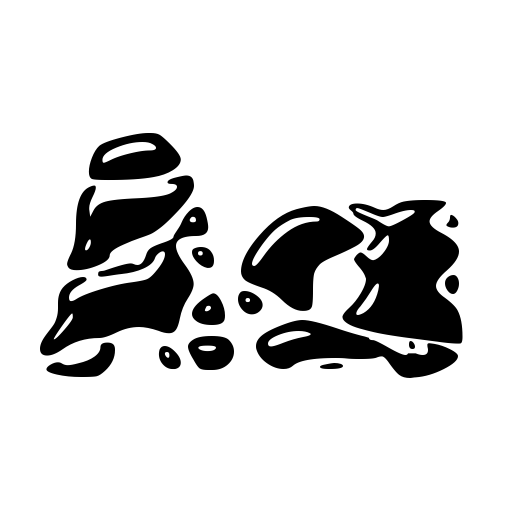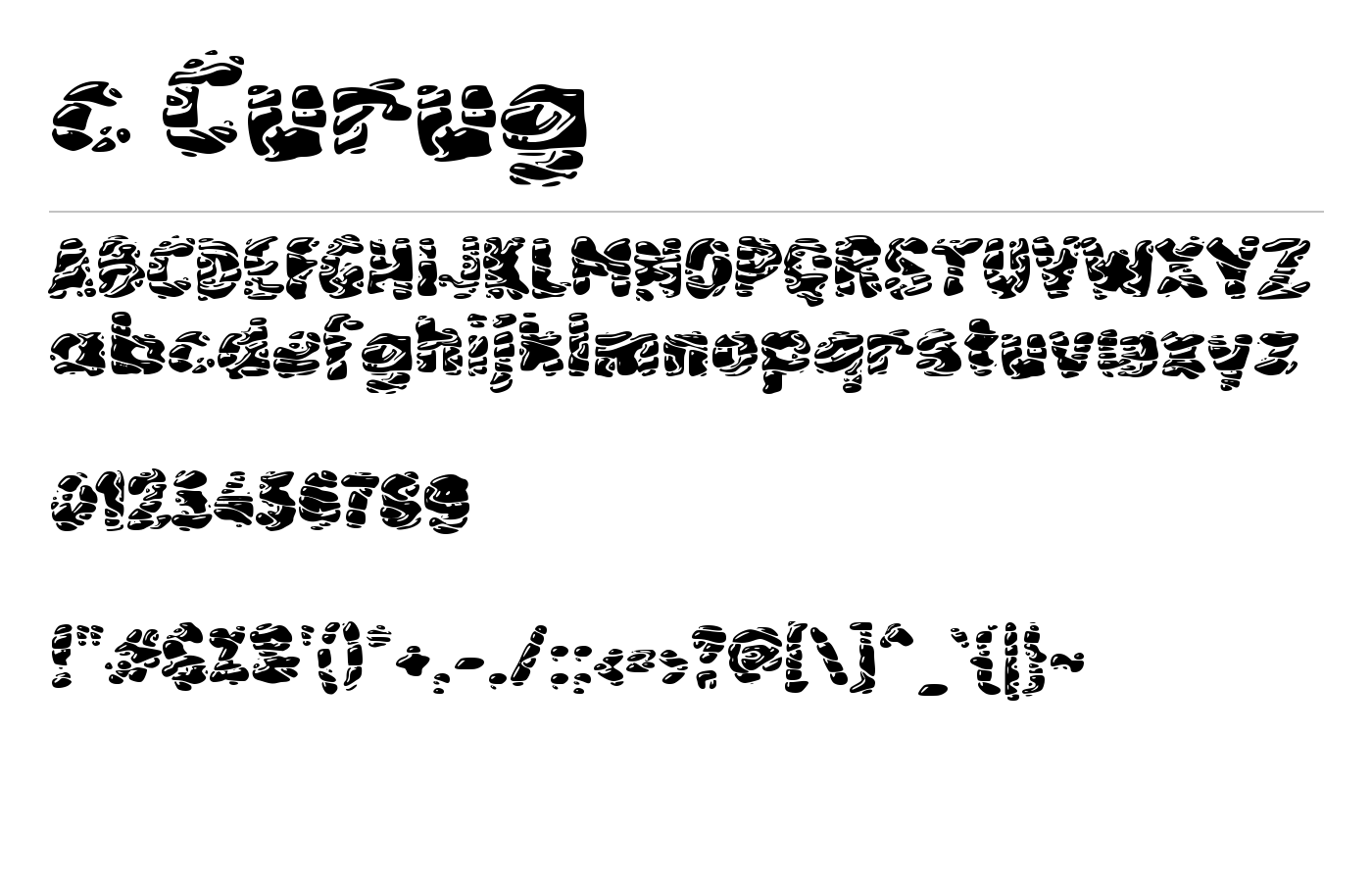
c Curug is a bold, decorative display font with a striking, organic texture that resembles irregular, fluid shapes layered within each letter. Its playful and dynamic style makes it ideal for eye-catching headlines, posters, and creative branding where a fun and unconventional look is desired. This font works best in large sizes to showcase its unique design and grab attention in artistic or adventurous projects.
c Curug Font